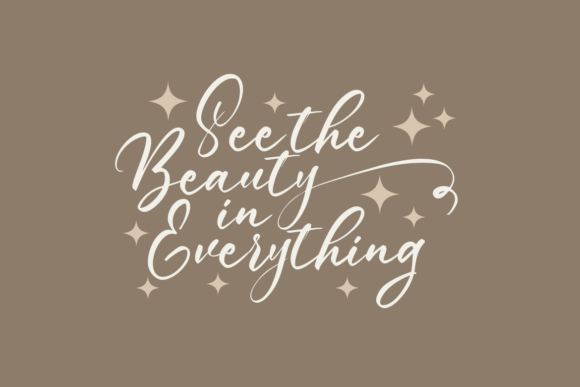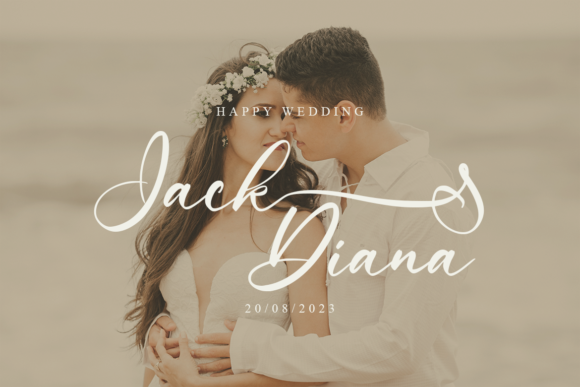
Moonshine Calligraphy Font
db-ku.com - Script & Handwritten -- Moonshine Calligraphy is an enchanting handwritten font. This versatile script font has a wide spectrum of applications ranging from greeting cards to headlines. Moonshine Calligraphy is PUA encoded which means you can access all glyphs and swashes with ease!